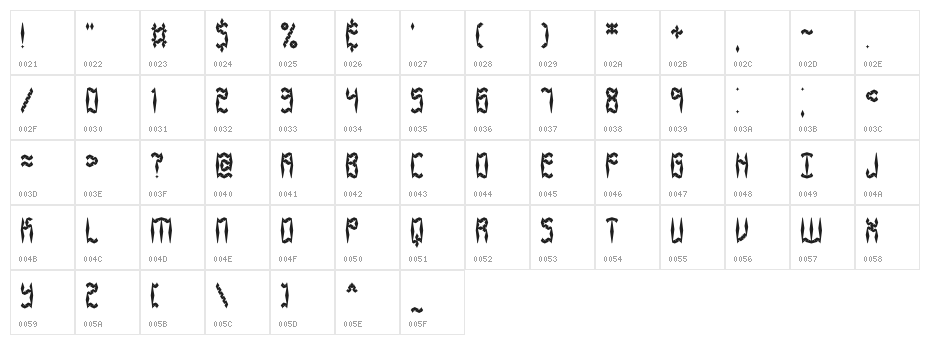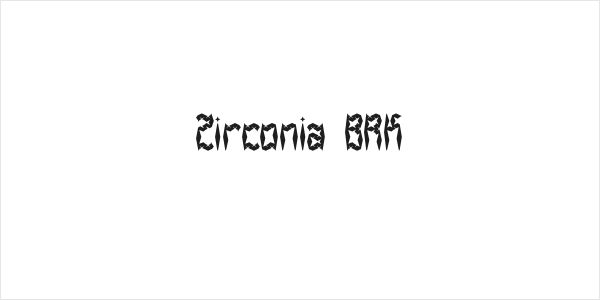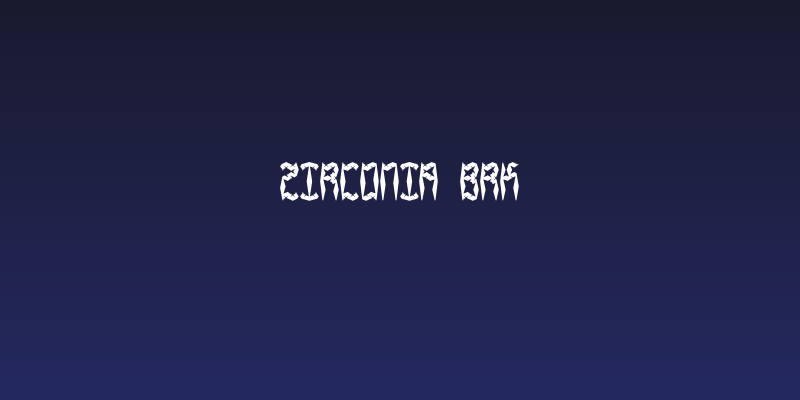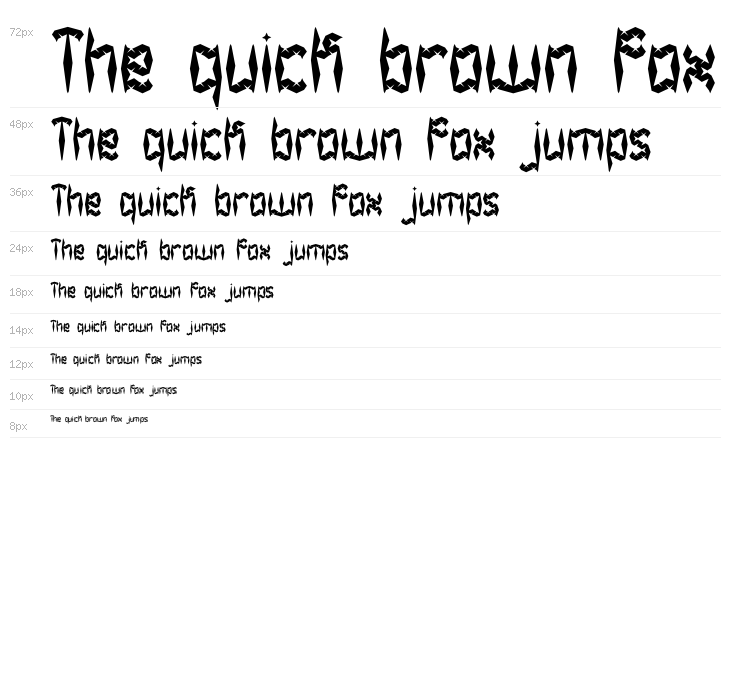
Zirconia BRK Font
Zirconia BRK Description
This font features a highly decorative and angular design, reminiscent of sharp, crystalline structures. Each character is composed of jagged, geometric shapes that create a bold and striking appearance. The uppercase and lowercase letters maintain a consistent style, with sharp edges and pointed tips that give the font a unique, edgy look. Numbers and special characters follow the same design principles, ensuring a cohesive visual experience. The overall aesthetic is modern and avant-garde, making it suitable for projects that require a distinctive and eye-catching typeface.
| Proposed Projects | Ideal for album covers, posters, branding for edgy or modern products, and any design that requires a standout, artistic font. |